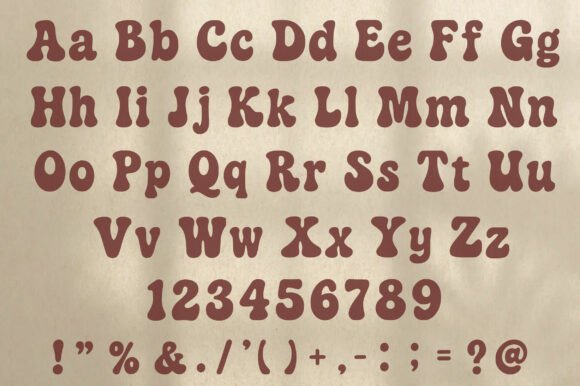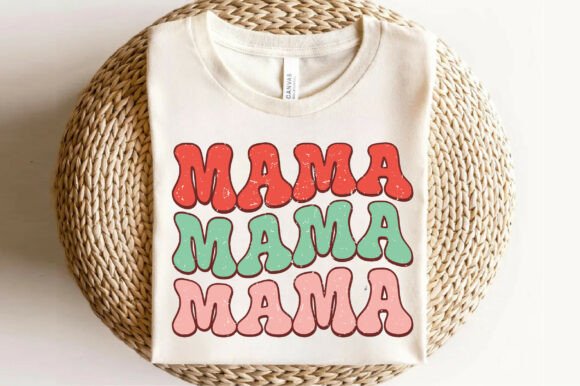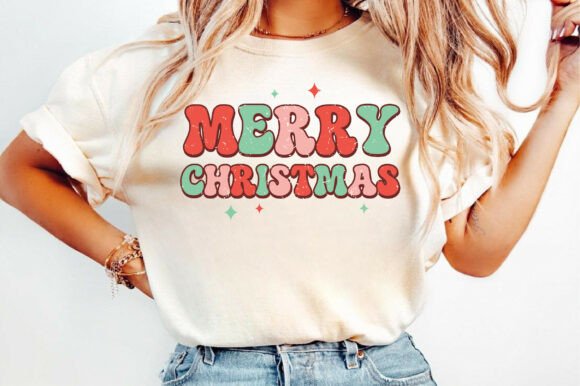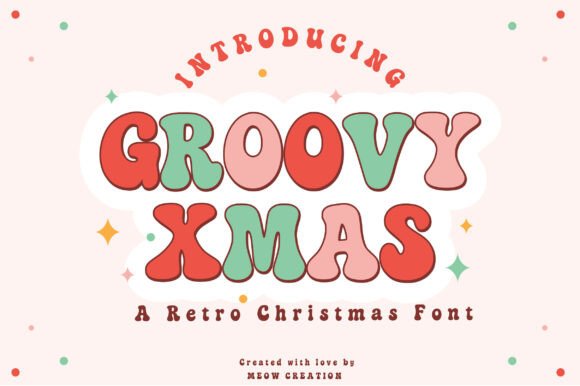
Groovy Xmas Font: Add a Playful 70s Vibe to Your Holiday Projects
Are you looking for a unique and fun way to add some retro flair to your holiday projects? Look no further than the Groovy Xmas font! This bold, funky font is perfect for bringing a cheerful, nostalgic touch to your Christmas cards, t-shirts, mugs, posters, and sublimation designs.
What is Groovy Xmas Font?
Groovy Xmas is a retro Christmas font that captures the playful, groovy vibe of the 1970s. Its bold, funky lettering is sure to make your holiday designs stand out. With its unique and eye-catching style, this font is perfect for designers and crafters who want to add a little something extra to their projects.
Features of Groovy Xmas Font
- Retro Style: Groovy Xmas font features a bold, retro style that’s reminiscent of the 1970s.
- Playful Lettering: The font’s playful lettering is sure to add a fun and groovy touch to your holiday designs.
- Versatile: Groovy Xmas font is perfect for a variety of projects, including Christmas cards, t-shirts, mugs, posters, and sublimation designs.
Uses for Groovy Xmas Font
Groovy Xmas font is perfect for a variety of holiday projects, including:
- Christmas Cards: Add a playful touch to your Christmas cards with Groovy Xmas font.
- T-Shirts: Create fun and festive t-shirts with Groovy Xmas font.
- Mugs: Add a groovy touch to your holiday mugs with Groovy Xmas font.
- Posters: Create eye-catching posters with Groovy Xmas font.
- Sublimation Designs: Use Groovy Xmas font to create unique and festive sublimation designs.
Benefits of Using Groovy Xmas Font
There are many benefits to using Groovy Xmas font in your holiday projects. Some of the benefits include:
- Unique Style: Groovy Xmas font features a unique and eye-catching style that’s sure to make your projects stand out.
- Versatile: Groovy Xmas font is perfect for a variety of projects, making it a great addition to your font library.
- Time-Saving: With Groovy Xmas font, you can create professional-looking projects in no time.
Tips for Using Groovy Xmas Font
Here are some tips for using Groovy Xmas font in your holiday projects:
- Experiment with Colors: Try pairing Groovy Xmas font with different colors to create a unique and eye-catching look.
- Use it with Other Fonts: Combine Groovy Xmas font with other fonts to create a unique and interesting look.
- Add Graphics: Add graphics and images to your projects to make them more visually interesting.
- Keep it Simple: Don’t be afraid to keep your design simple and let the font be the star of the show.
Groovy Xmas font is a fun and playful way to add a retro touch to your holiday projects. With its bold, funky lettering and versatile design, it’s perfect for designers and crafters of all skill levels. Whether you’re creating Christmas cards, t-shirts, mugs, posters, or sublimation designs, Groovy Xmas font is sure to make your projects stand out. So why wait? Download Groovy Xmas font today and start creating your own groovy holiday designs!